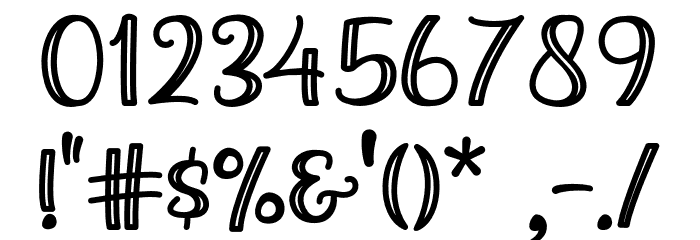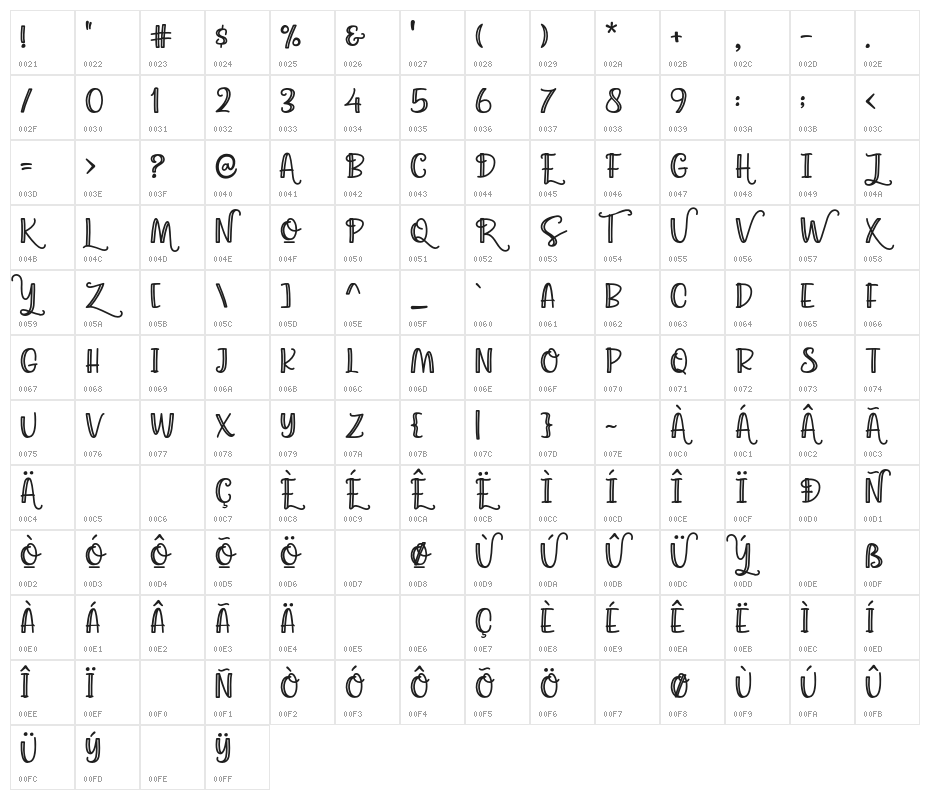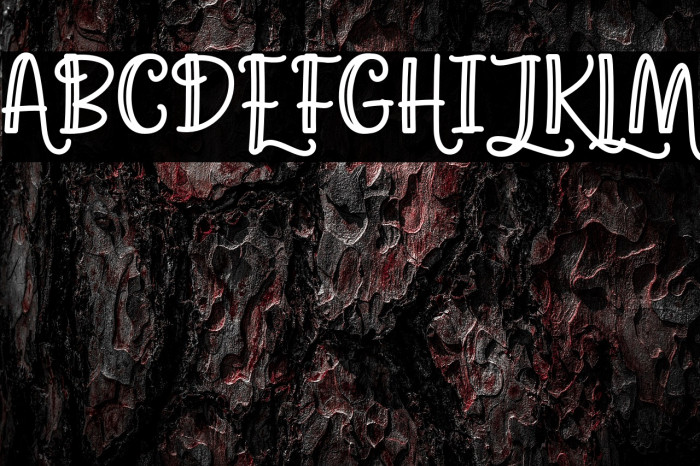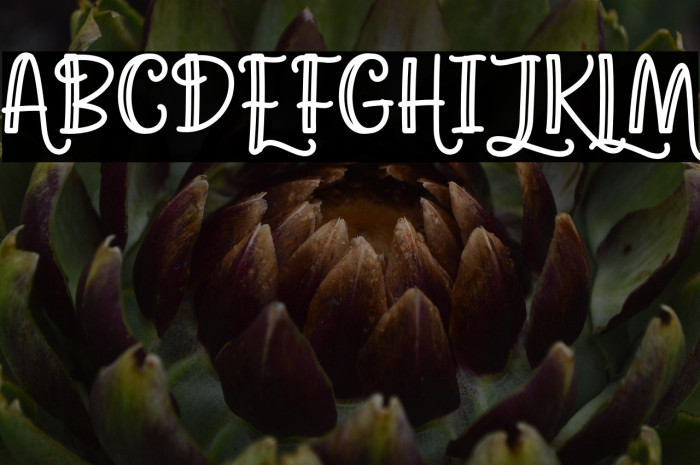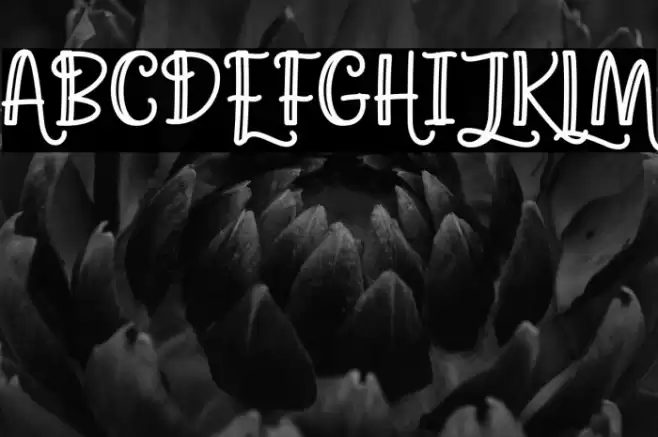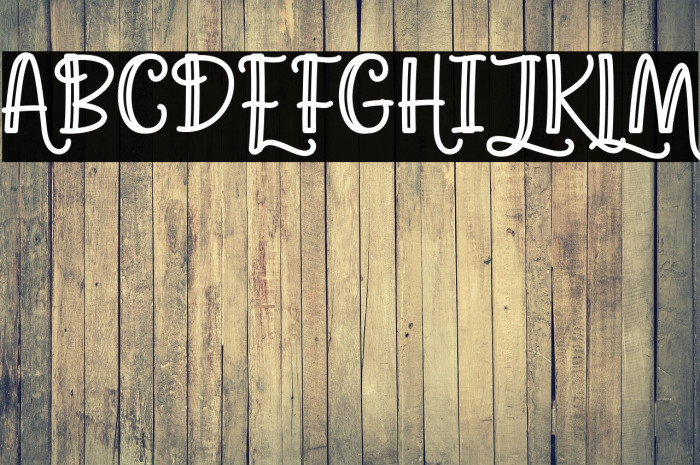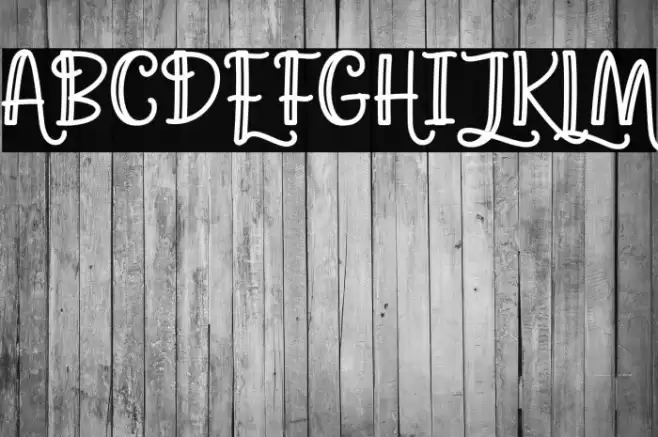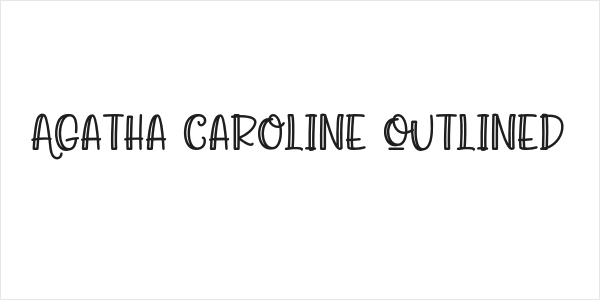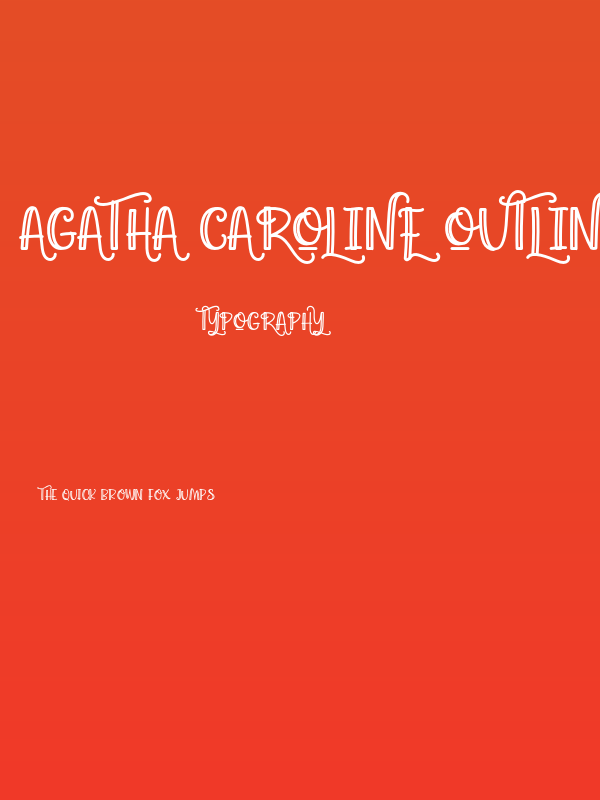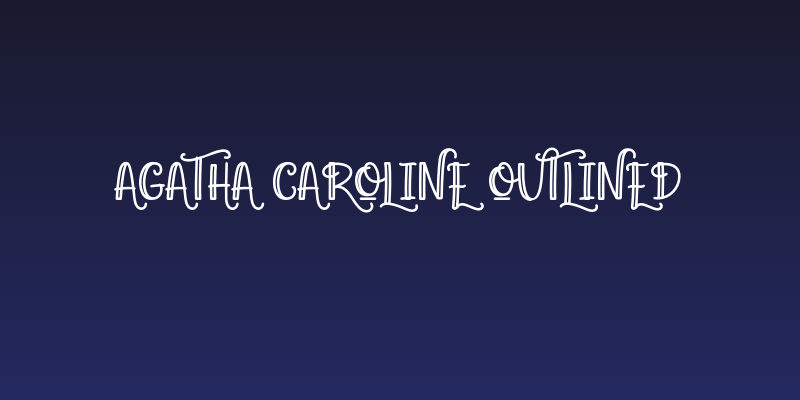
Agatha Caroline Outlined Font
Agatha Caroline Outlined Description
This font features a playful and decorative style with an outlined design that gives it a unique and eye-catching appearance. The uppercase and lowercase letters are crafted with a whimsical flair, incorporating curves and loops that add a sense of movement and fun. The numbers and special characters maintain this playful aesthetic, ensuring consistency across all glyphs. The outlined nature of the font adds a layer of depth, making it suitable for designs that require a standout, artistic touch. The strokes are consistent in width, providing a balanced look that is both approachable and stylish.
| Proposed Projects | Ideal for children's book covers, playful branding, party invitations, and creative posters. |